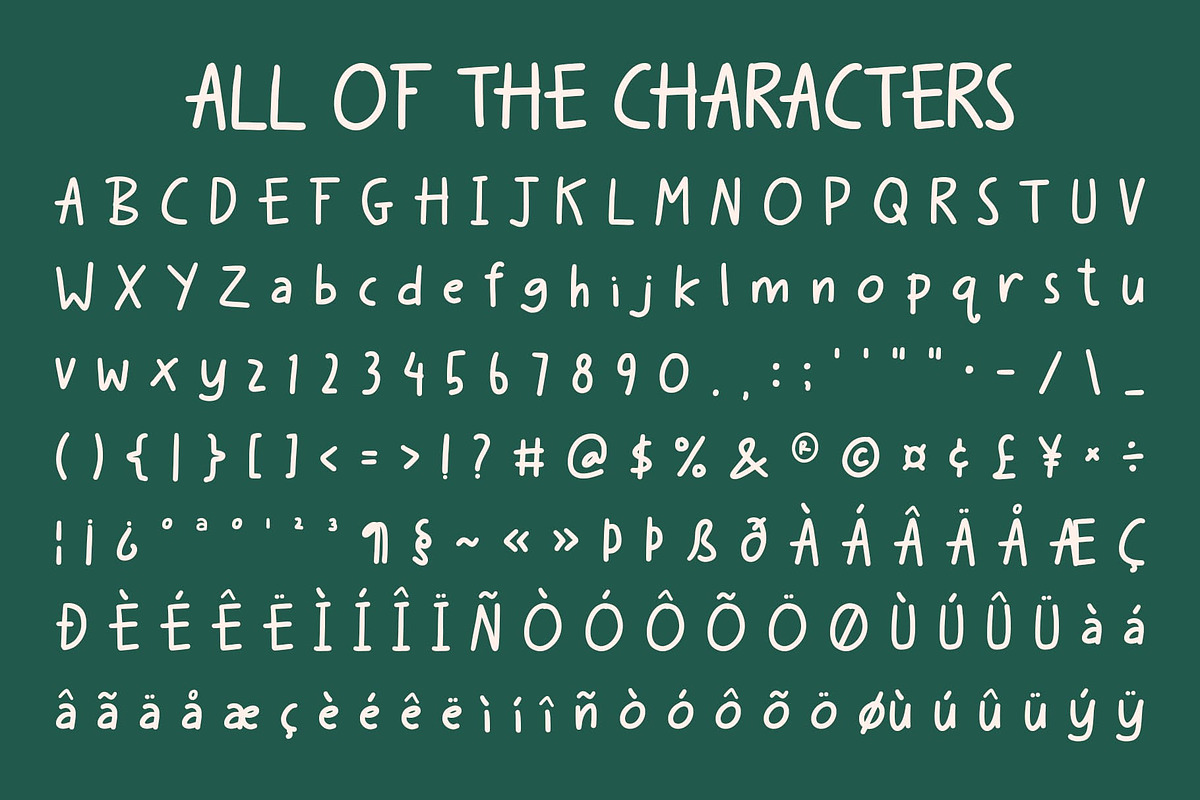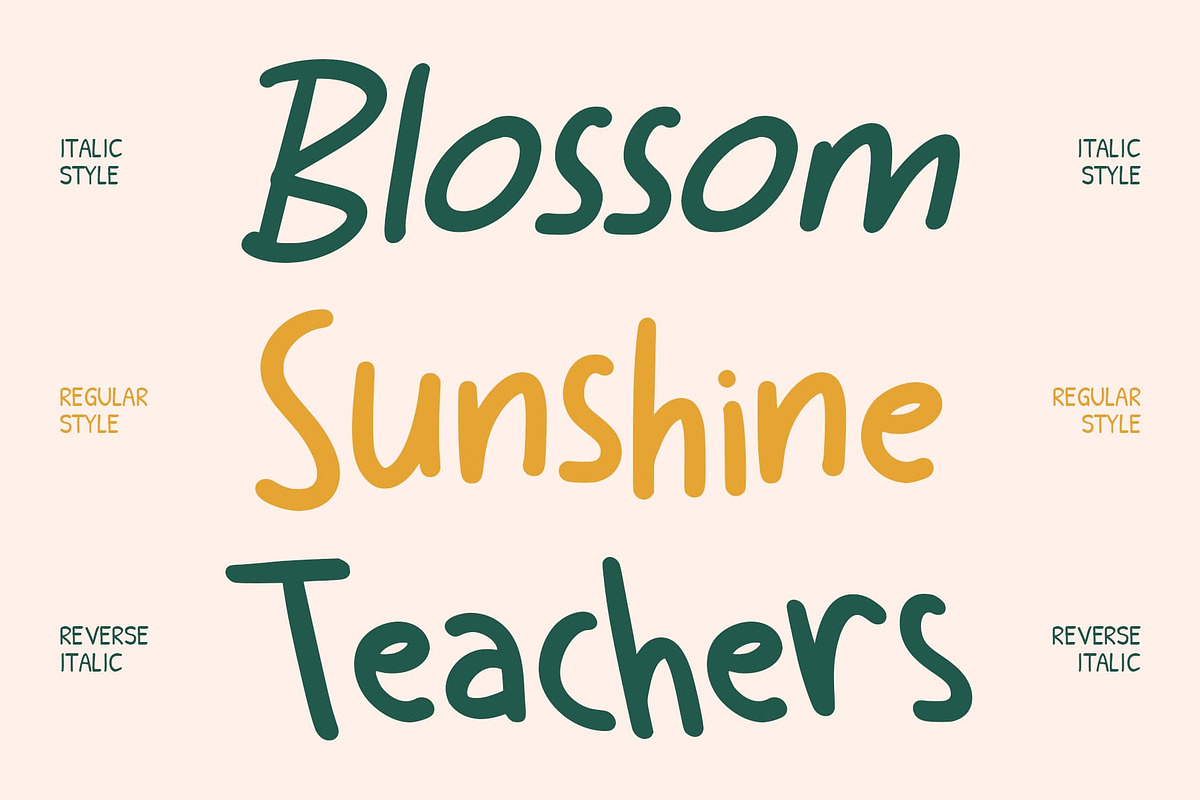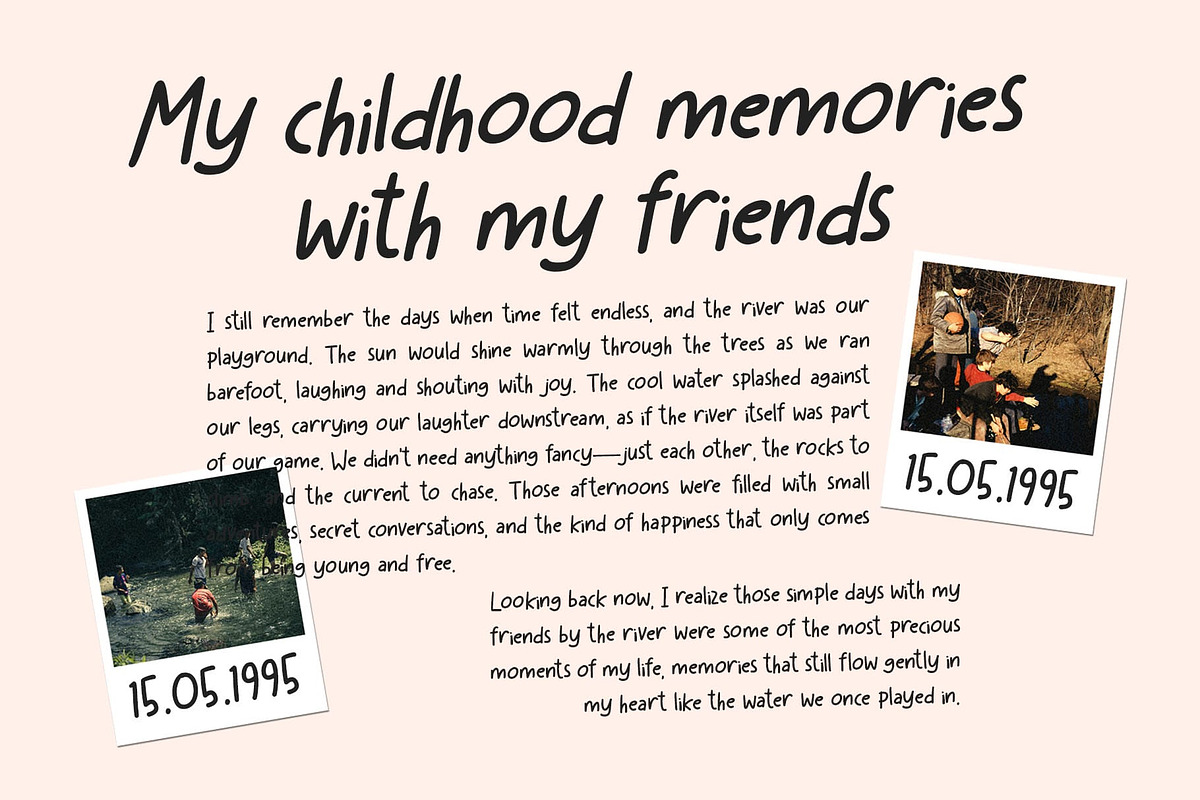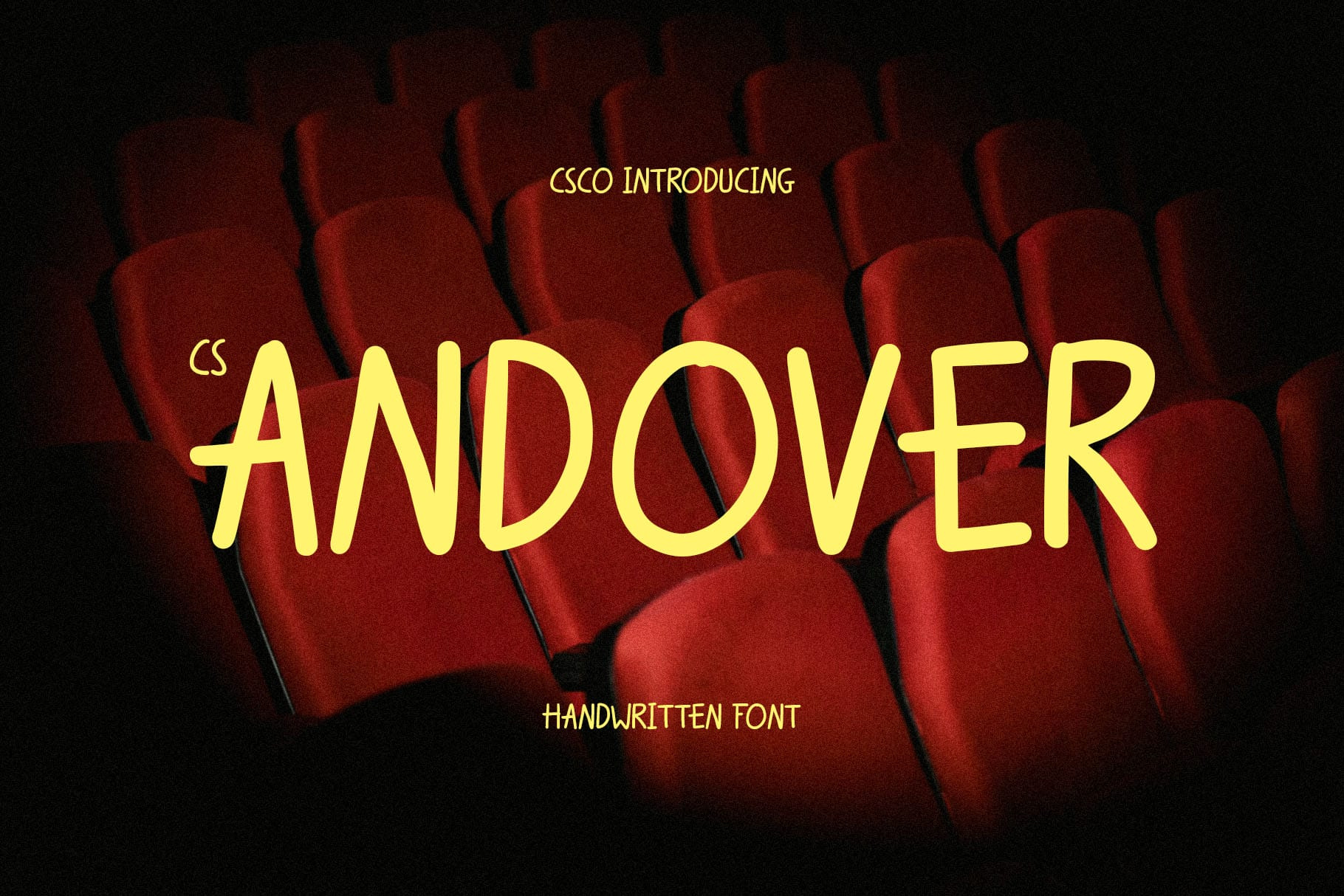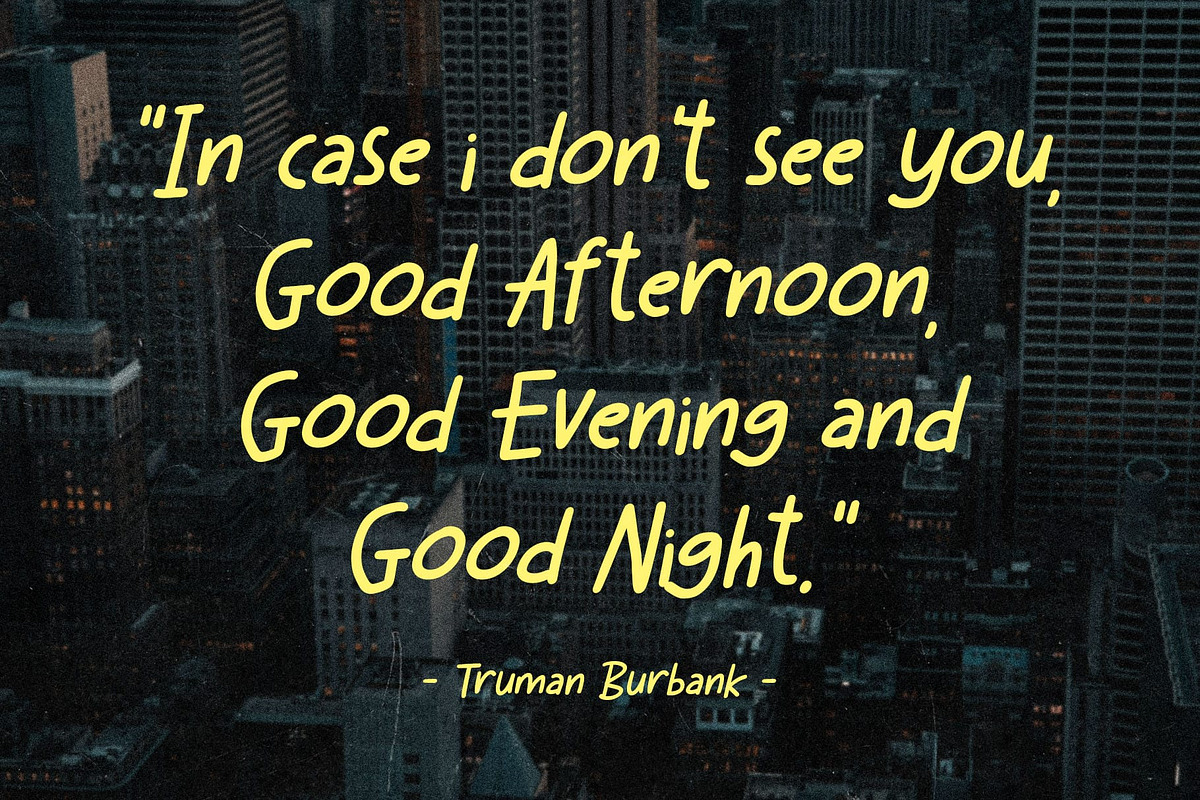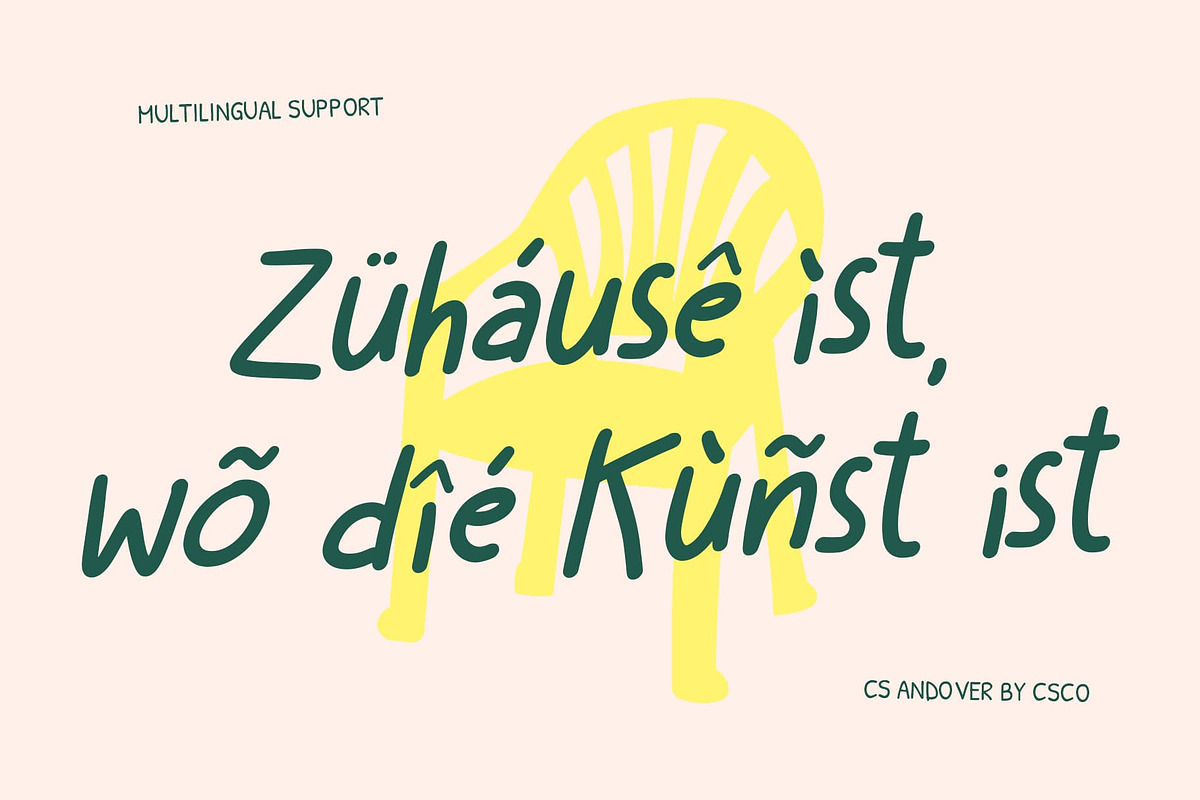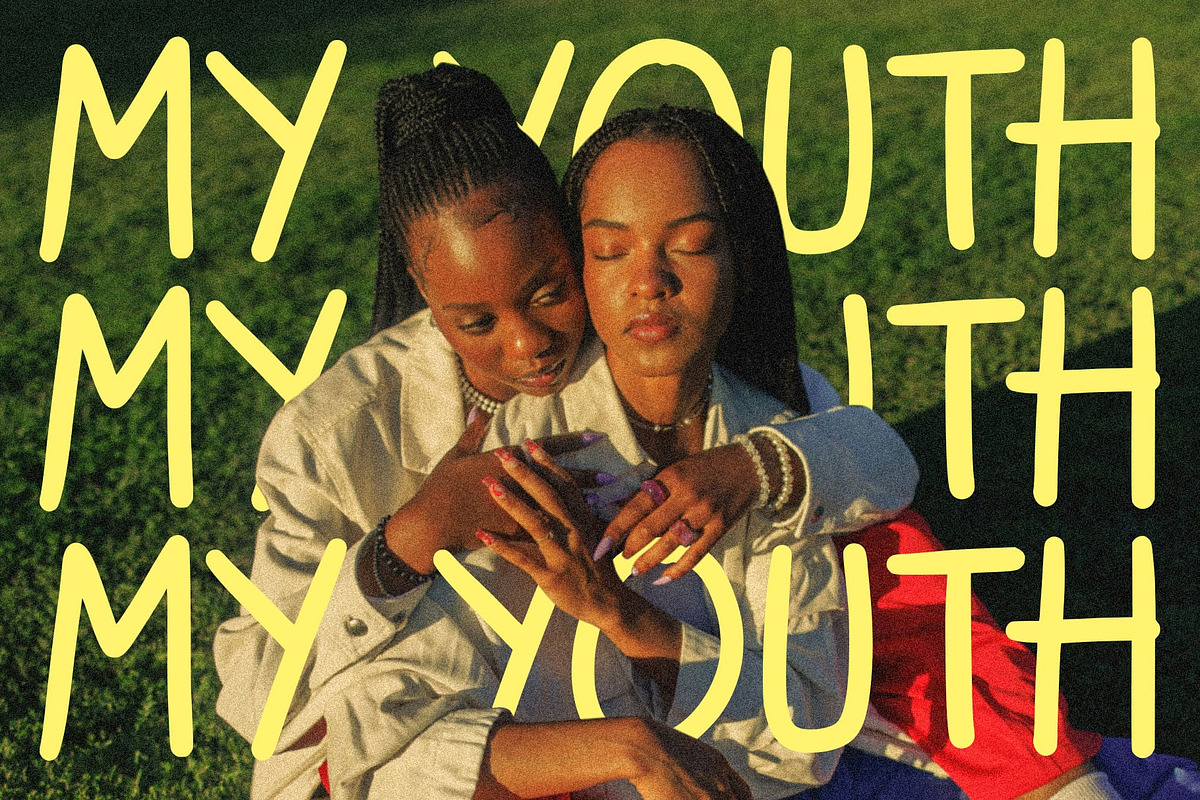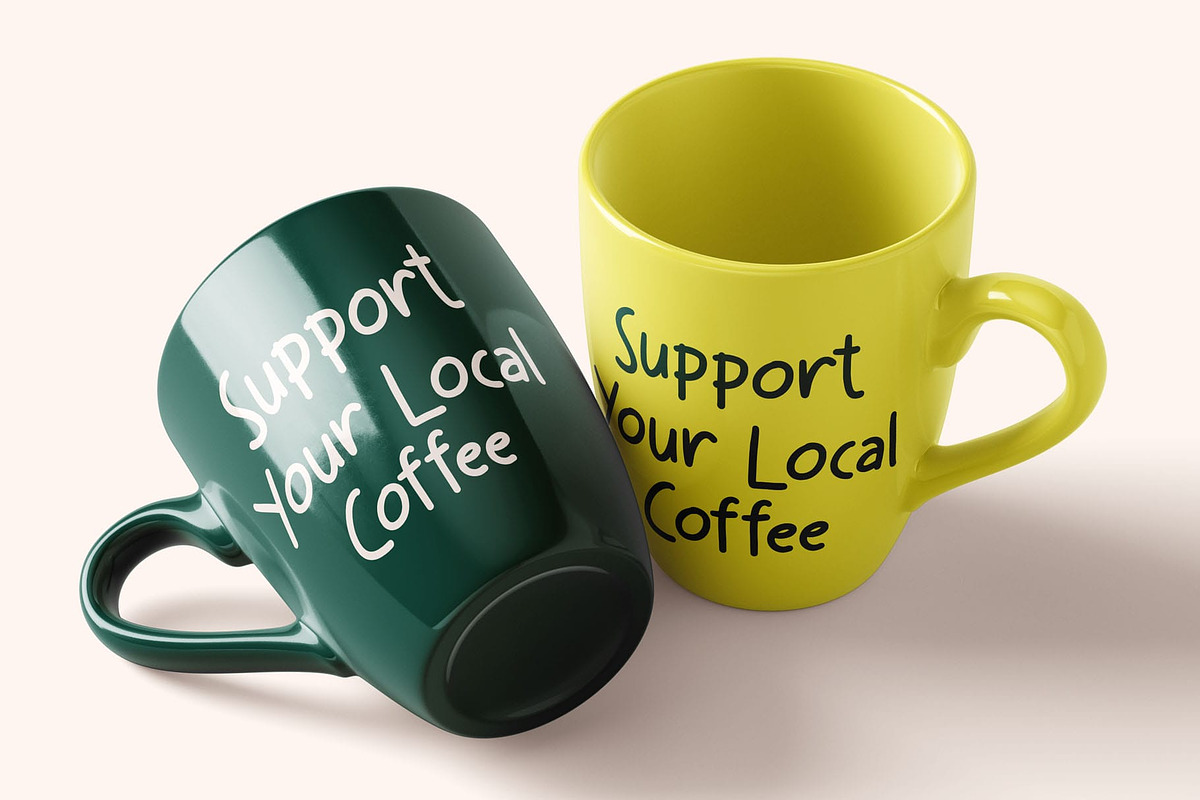
CS Andover–Playful Handwritten Font
CS Andover – Playful Handwriting Full of Energy
Playful Handwritten Font with Friendly Vibes This is a fun and energetic playful handwritten font designed to bring joy to every design. Its rounded strokes and approachable shapes create a friendly, casual look that instantly feels welcoming. Each letter carries a lively personality, making it perfect for projects that want to appear youthful, vibrant, and engaging.
Rounded Strokes for Warmth and Approachability The carefully crafted rounded sans serif forms of this font give the font a soft, inviting character. Its organic, handwritten flow combines charm with readability, allowing your message to shine without losing style. The playful shapes make it stand out in any creative context while maintaining clarity.
Energetic Style for Dynamic Designs This font radiates energy and fun, making it ideal for designs that need a sense of movement and excitement. Its joyful character works beautifully for greeting cards, casual branding, lifestyle graphics, or social media content, capturing attention while conveying a relaxed, friendly tone.
Perfect for Youthful and Casual Projects From youth-oriented branding to cheerful invitations and casual creative campaigns, this font adds a lively, approachable touch. Its playful, handwritten charm ensures that every design feels personal, engaging, and full of positive energy bringing a smile to every viewer.
- CS Andover Regular
- CS Andover Italic
- CS Andover Reverse Italic